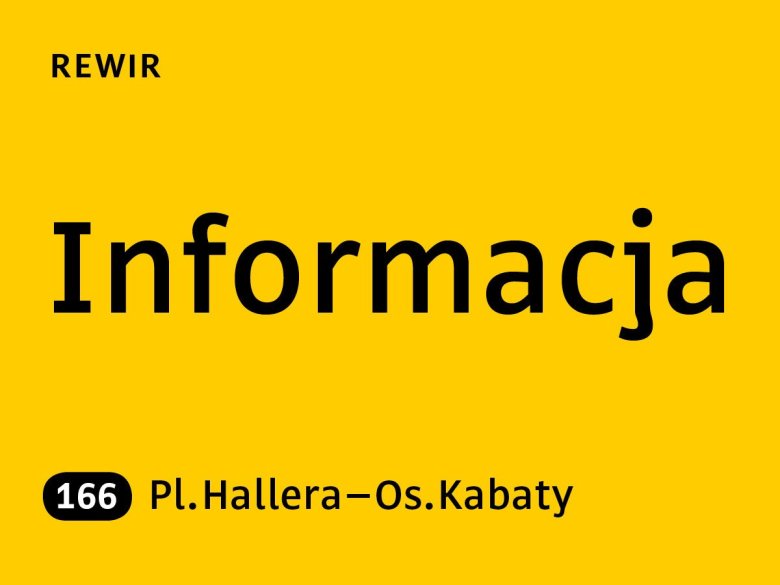
Rewir Typeface
Befonts introduce to you the set of fonts, introduction Rewir Typeface! Rewir designed by Robert Jarzec. Rewir is a way-finding font. The letter shapes are inspired by a small sign found on the backyard of a tenement house in Warsaw. The project is a proposal for corporate font to be used on plates and signage on official city and state buildings. The font is very legible, also in the varying viewing conditions. It can be used for official plates, letterheads, public transit information, etc. The design combines the history of Warsaw’s lettering and the requirements of a modern city.